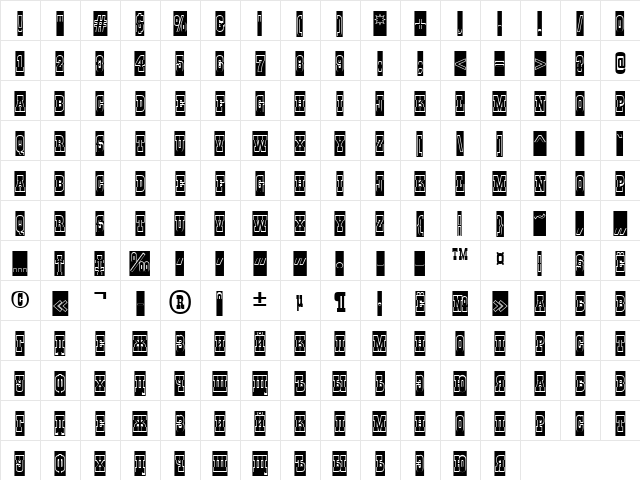
Complete a_GildiaTitulCmGr Bold glyph index. Displaying only characters natively supported by a_GildiaTitulCmGr Bold font.
a_GildiaTitulCmGr is a composed and adaptable typeface that performs quietly and consistently across a wide range of design contexts. Its bold stroke weight gives it real presence on the page.